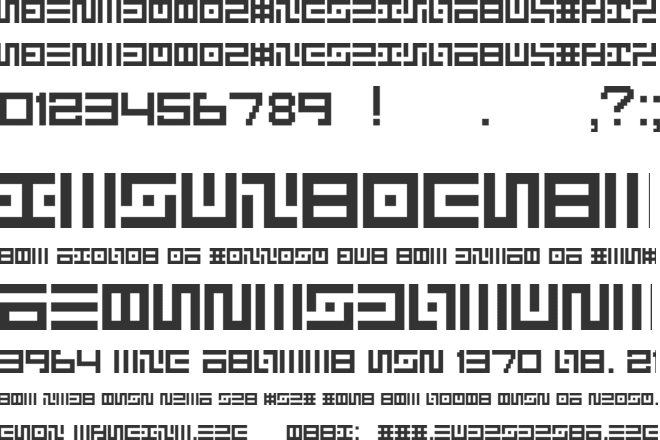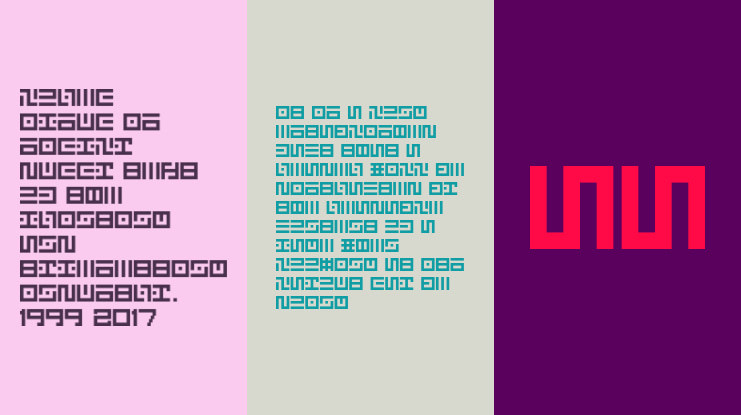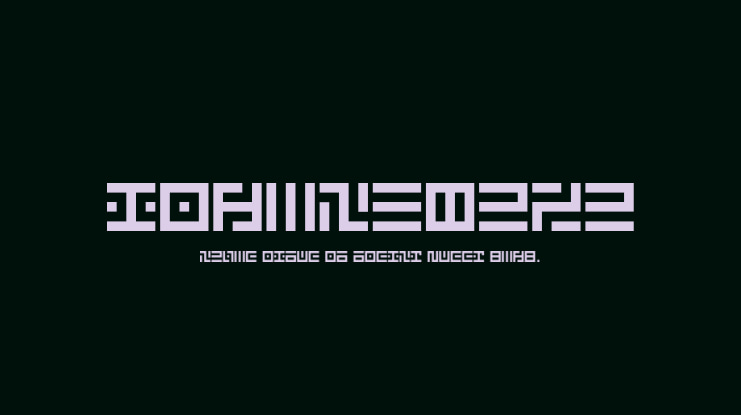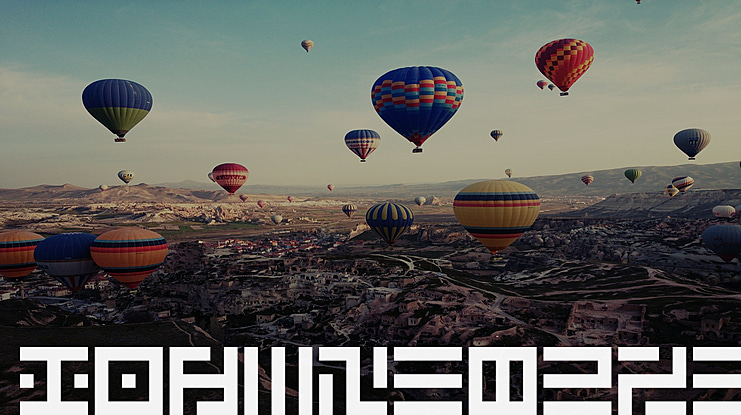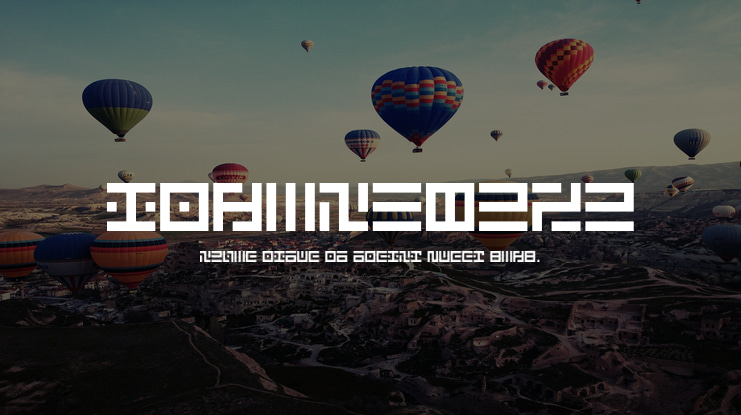
PixelChozo Font
I am not affiliated with Nintendo, which made the original design and implemented it in a few Metroid games. Please go buy the metroid games to appreciate the creators!